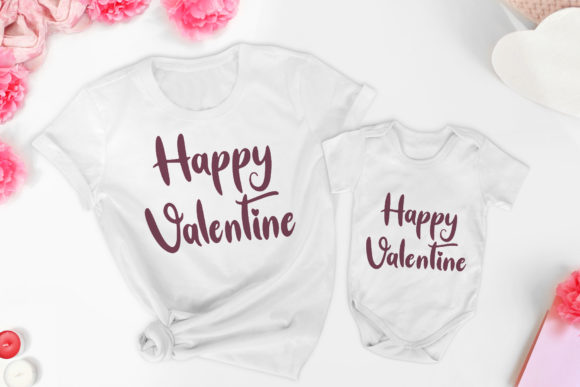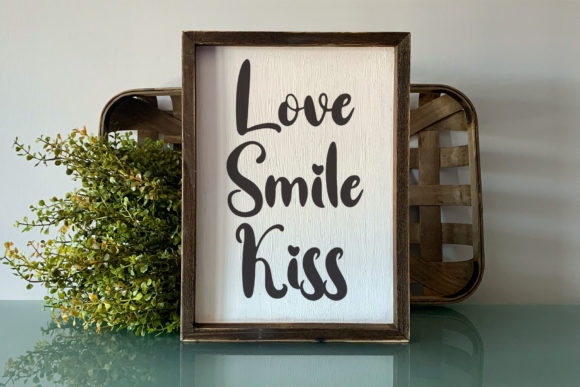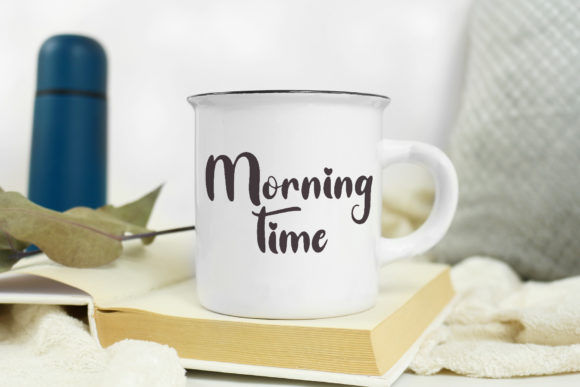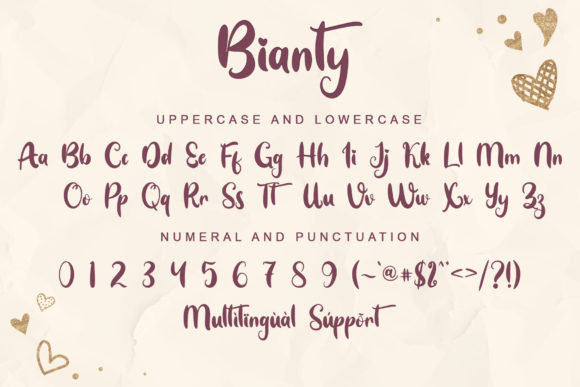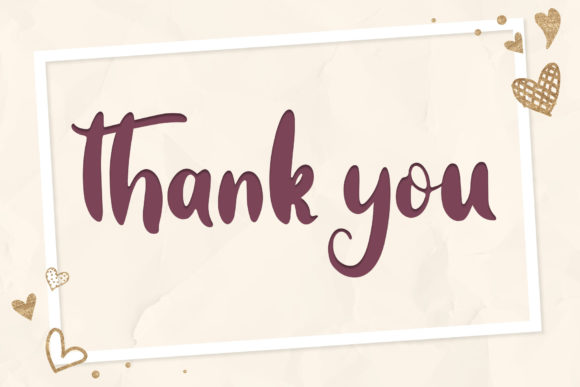
Introducing Bianty Font: The Sweet and Artistic Handwritten Font for Your Creative Projects
Are you a designer or crafter looking for a unique and artistic font to add a personalized touch to your projects? Look no further than Bianty Font, a sweet and paint-brushed handwritten font that is perfect for a variety of creative applications. In this article, we’ll take a closer look at Bianty Font, its features, and how you can use it to elevate your designs.
What is Bianty Font?
Bianty Font is a beautiful, handcrafted font that is designed to give your projects a customized and artistic feel. It is a handwritten font that features a sweet and delicate style, with a paint-brushed effect that gives it a unique and organic look. Whether you’re working on a wedding invitation, a thank you card, or a business logo, Bianty Font is the perfect choice for adding a touch of elegance and sophistication.
Key Features of Bianty Font
So, what makes Bianty Font so special? Here are some of its key features:
• Sweet and delicate style: Bianty Font has a feminine and elegant feel that is perfect for projects that require a touch of sophistication.
• Paint-brushed effect: The font features a unique paint-brushed effect that gives it a organic and artistic look.
• Handwritten style: Bianty Font is a handwritten font that is designed to look like it was written with a brush or a pen.
• Versatile: Bianty Font can be used for a variety of projects, including wedding invitations, thank you cards, quotes, greeting cards, logos, business cards, and more.
How to Use Bianty Font in Your Projects
Bianty Font is a versatile font that can be used in a variety of creative projects. Here are some ideas for using Bianty Font:
• Wedding Invitations: Bianty Font is perfect for wedding invitations, as it adds a touch of elegance and sophistication to your design.
• Thank You Cards: Use Bianty Font to create beautiful and personalized thank you cards for special occasions.
• Quotes and Posters: Bianty Font is great for creating inspirational quotes and posters, as it adds a touch of artistic flair to your design.
• Greeting Cards: Bianty Font can be used to create beautiful and personalized greeting cards for special occasions, such as birthdays, holidays, and more.
• Logos and Business Cards: Use Bianty Font to create a unique and artistic logo or business card that stands out from the crowd.
Tips for Getting the Most Out of Bianty Font
Here are some tips for getting the most out of Bianty Font:
• Experiment with different colors: Bianty Font looks great in a variety of colors, so don’t be afraid to experiment and find the perfect color for your project.
• Use it with other fonts: Bianty Font can be paired with other fonts to create a unique and interesting design.
• Add a personal touch: Bianty Font is perfect for adding a personal touch to your projects, so don’t be afraid to get creative and add your own unique flair.
In conclusion, Bianty Font is a beautiful and artistic handwritten font that is perfect for designers and crafters looking to add a personalized touch to their projects. With its sweet and delicate style, paint-brushed effect, and versatile design, Bianty Font is the perfect choice for a variety of creative applications. Whether you’re working on a wedding invitation, a thank you card, or a business logo, Bianty Font is sure to elevate your design and give it a unique and artistic flair.